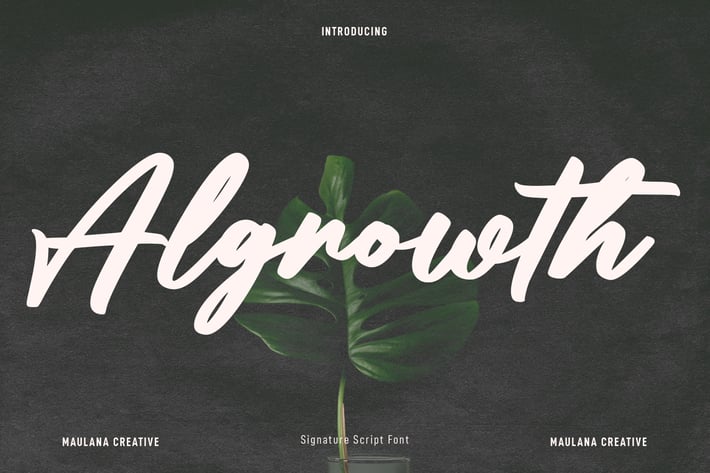
Algrowth Script Font
Algrowth is a casual modern signature script font. With light contrast stroke, fun character with a bit of ligatures and alternates. To give you an extra creative work. Algrowth font support multilingual more than 100+ language. This font is good for logo design, Social media, Movie Titles, Books Titles, a short text even a long text letter and good for your secondary text font with sans or serif. Make a stunning work with Algrowth font.